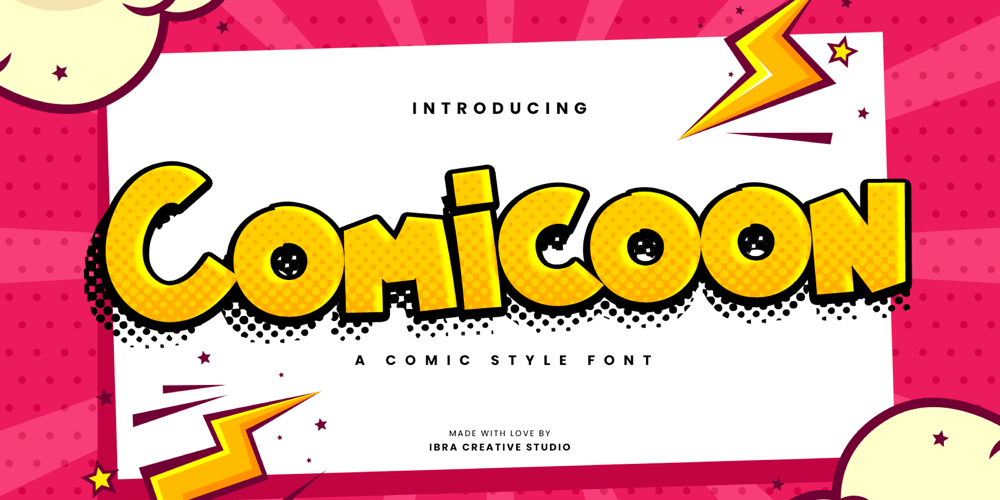
Comicoon Font Family was designed by Roisatul Azizah and published by IbraCreative. Comicoon contains 1 styles and family package options. Comicoon is a vibrant and playful comic-style font that bursts with fun and liveliness. Inspired by the bold and dynamic lettering found in classic comic books, Comicoon captures the essence of joyful storytelling. Each letter is adorned with expressive details, reminiscent of hand-drawn illustrations. It brings a sense of energy and excitement to any design, making it a perfect choice for comic books, graphic novels, and playful branding.